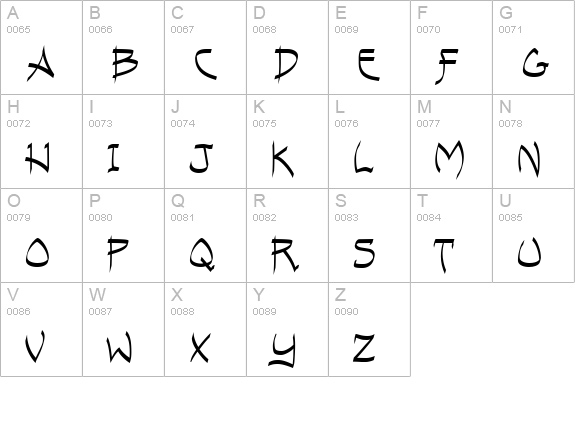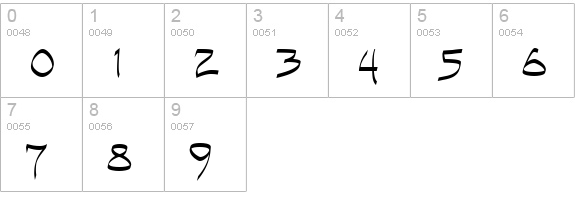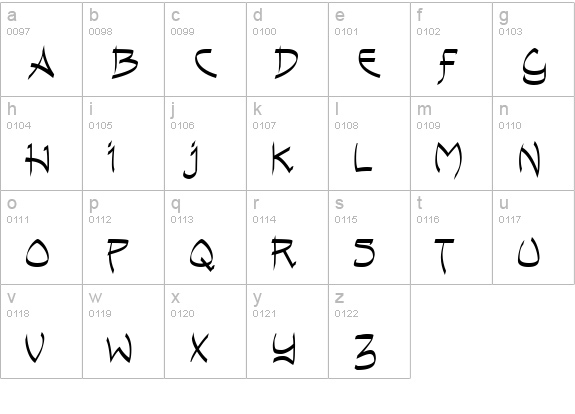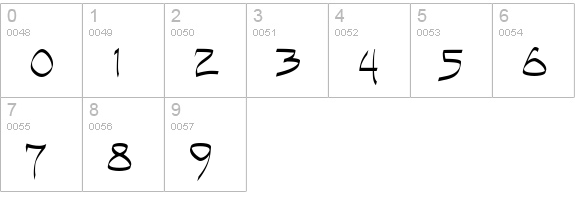
Andreas Pen MF Font Details
Andreas Pen MF is a stylish and elegant handwritten font that exudes sophistication and charm. With its smooth lines and intricate details, this font is perfect for adding a personal touch to your projects. Whether you're designing invitations, logos, or social media graphics, Andreas Pen MF will make your text stand out. What's even better is that Andreas Pen MF is completely free to download at FontsMarket.com. This means you can access this beautiful font without any cost, making it a valuable addition to your font collection. Don't miss out on this opportunity to elevate your designs with the timeless beauty of Andreas Pen MF.